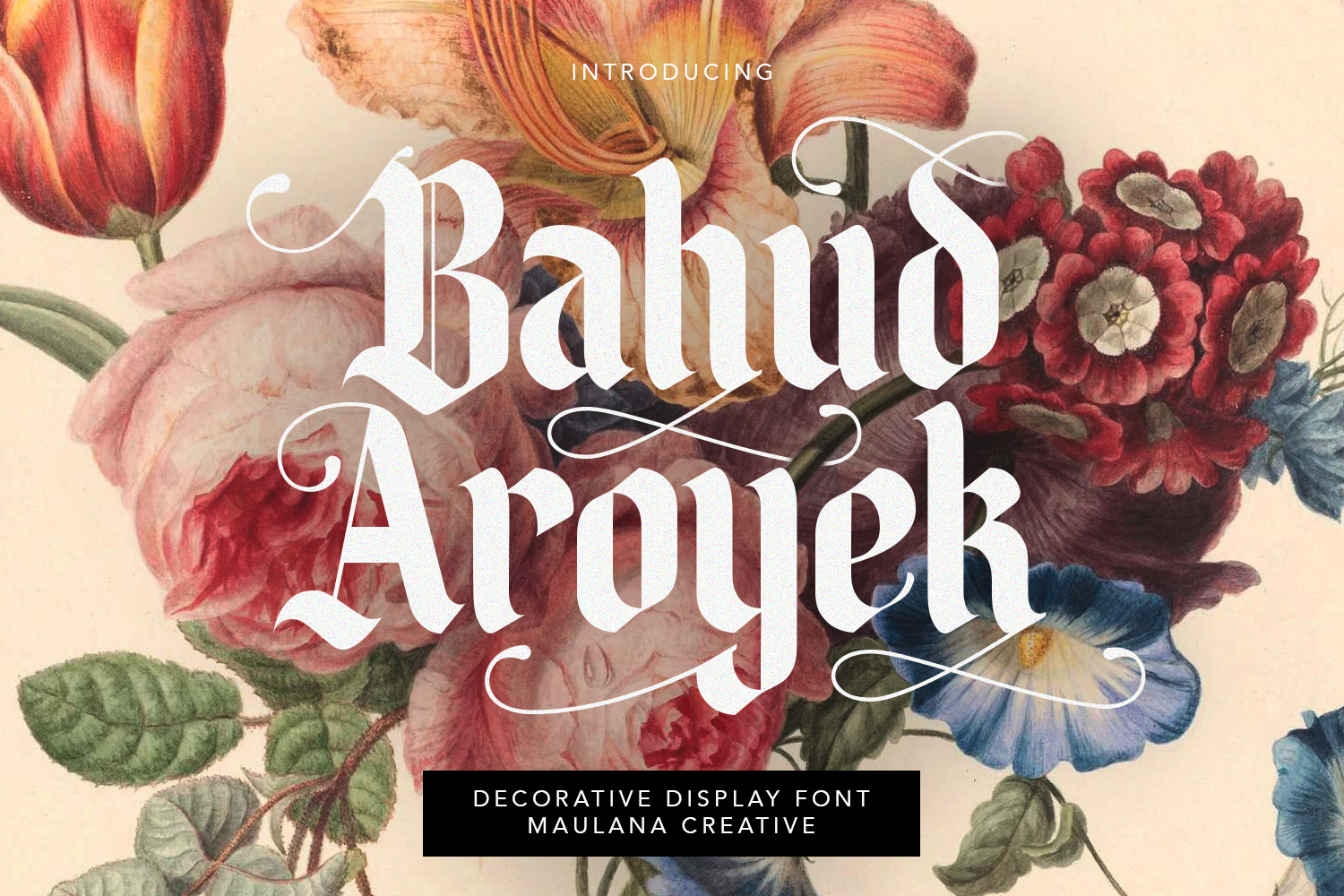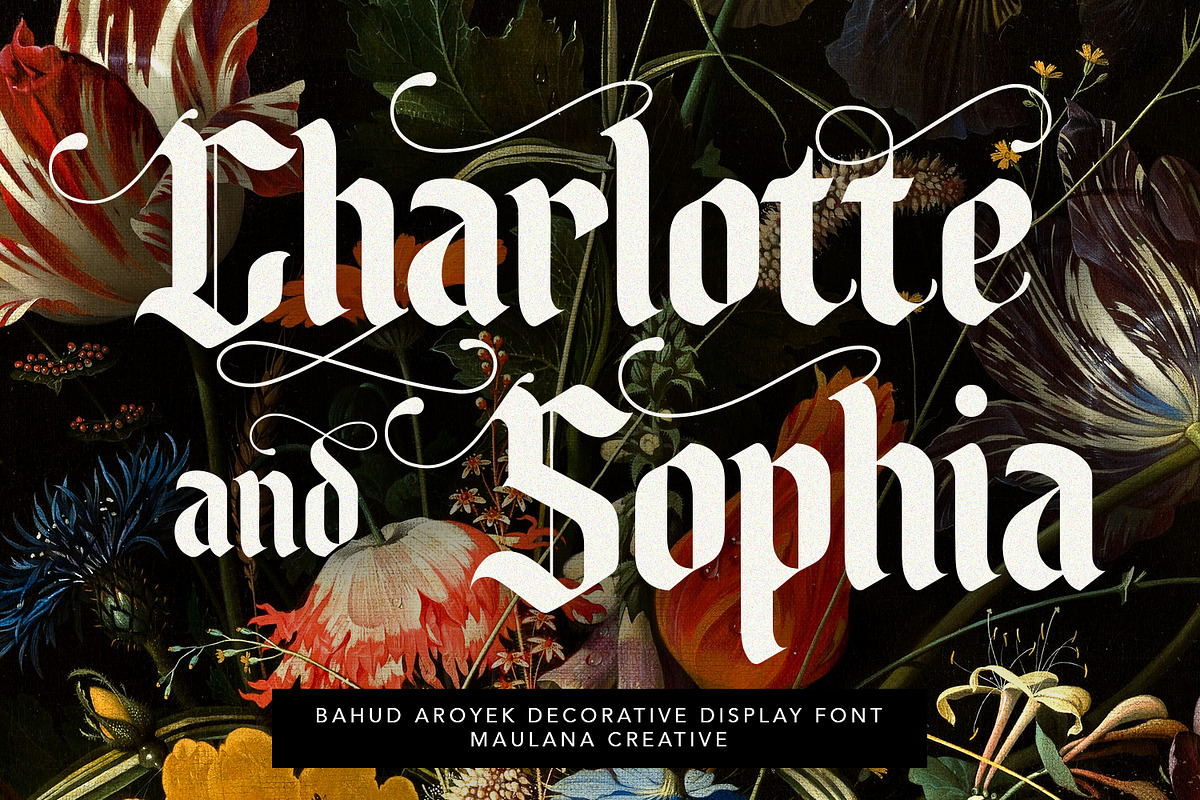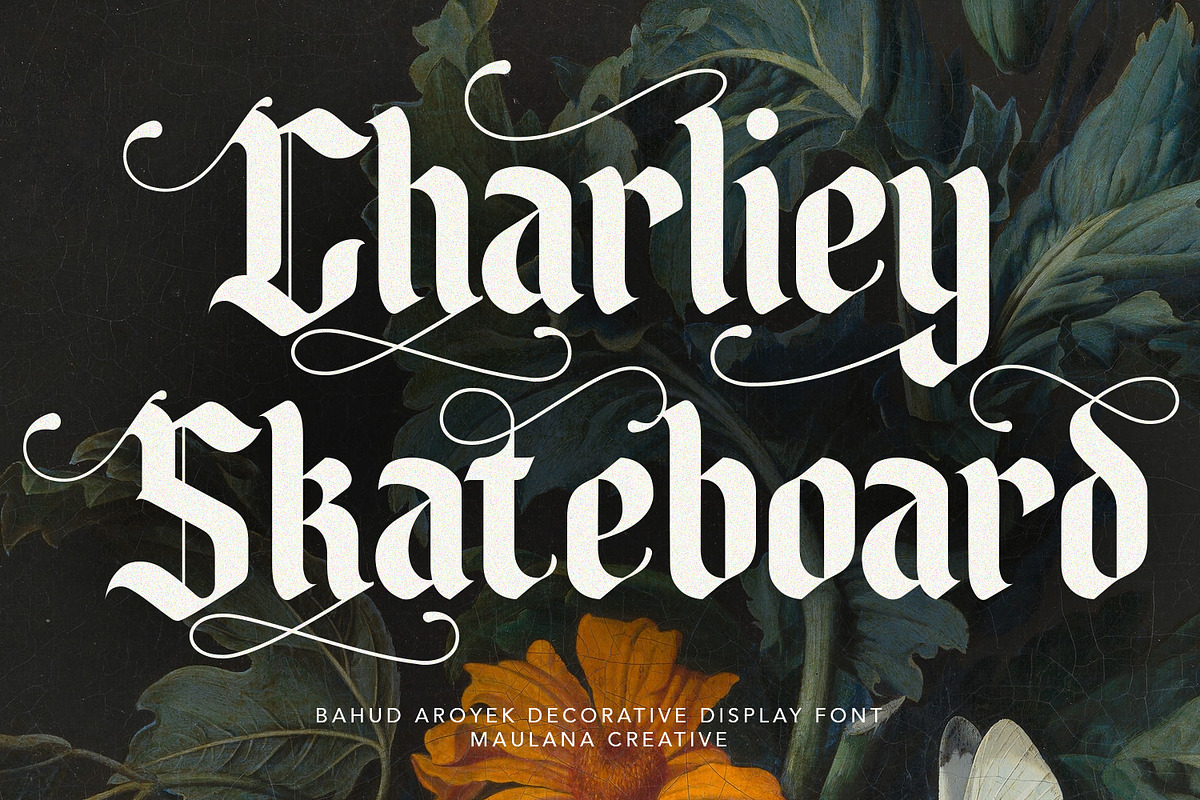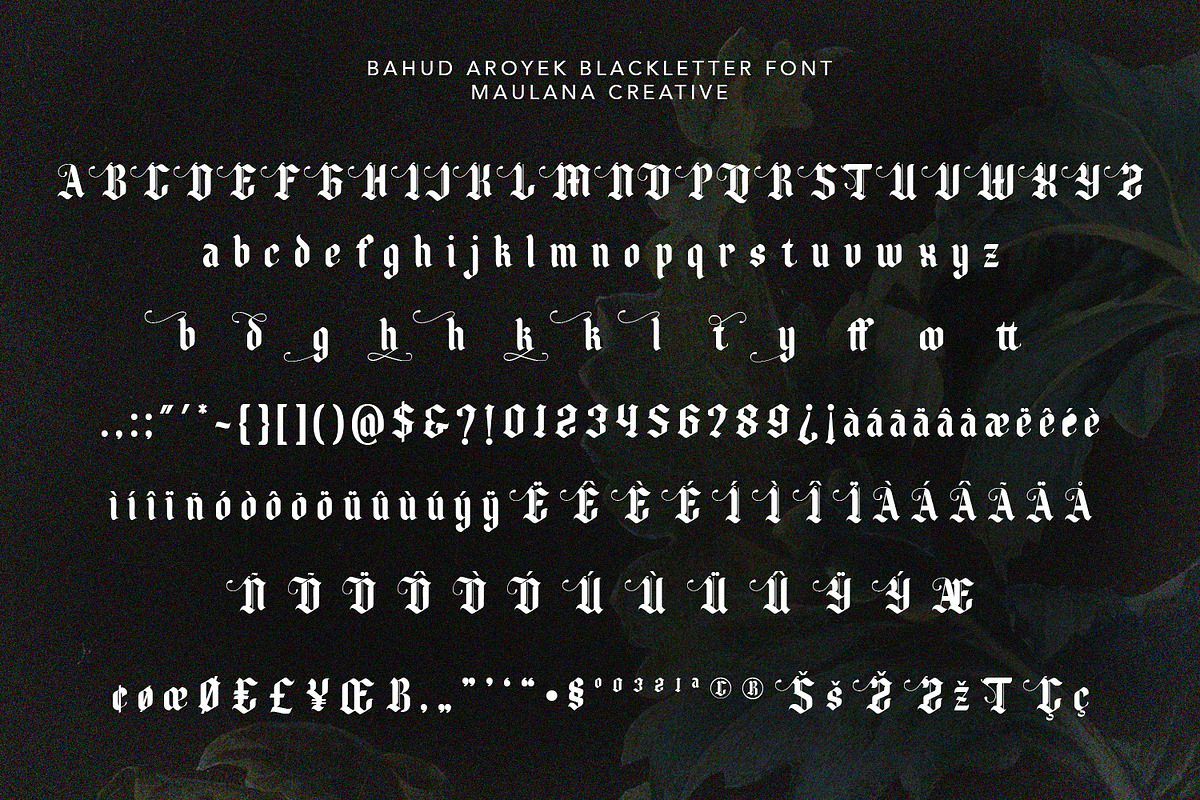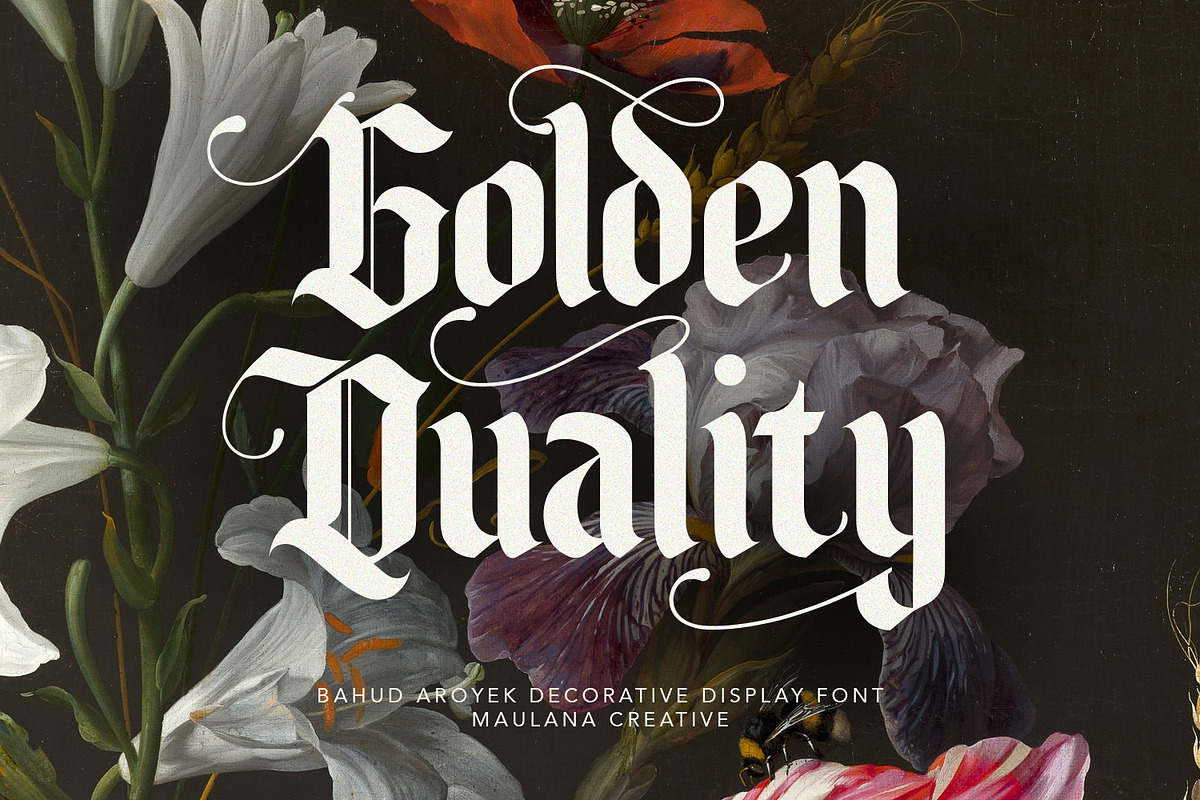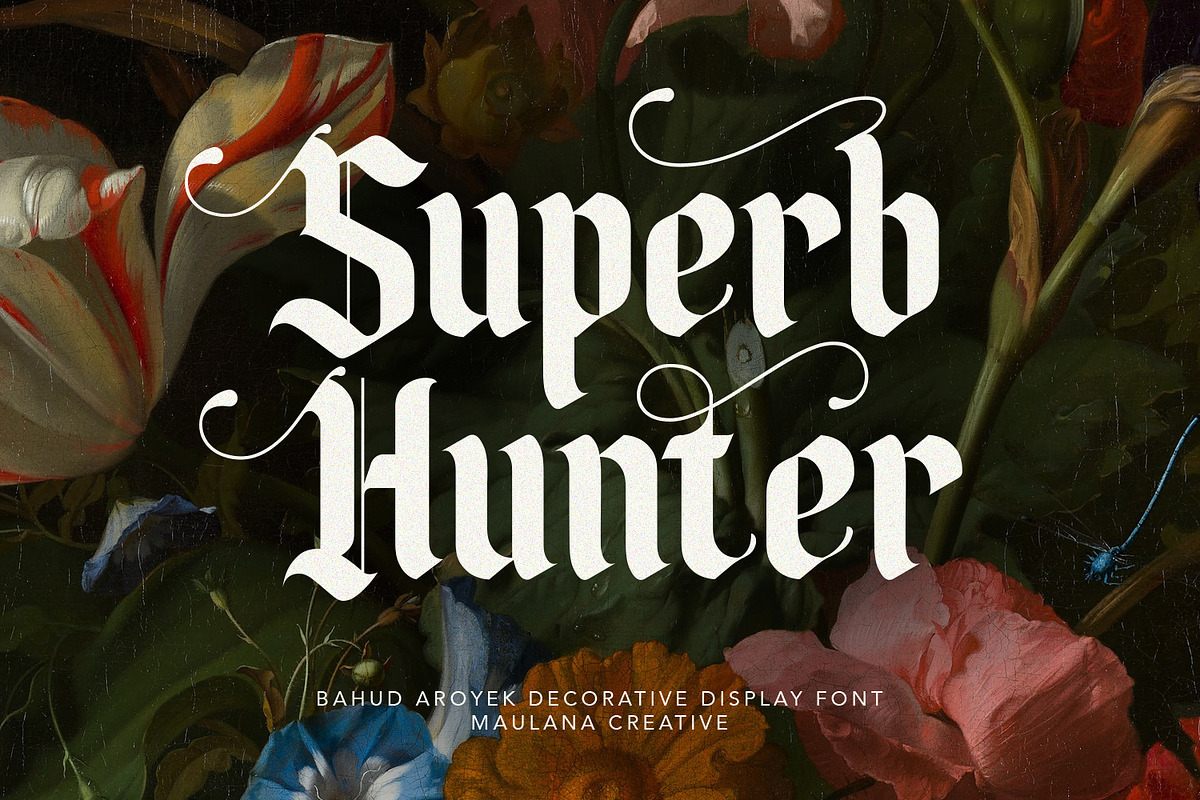
Bahud Aroyek Decorative Display Font
Bahud Aroyek Decorative Display Font Blackletter.
Bahud Aroyek Vintage is a handmade Modern Victorian handlettering, which is combining modern and classic typography with some awesome alternates. Yes we back to early 1800s, bring classic touch on this decade.